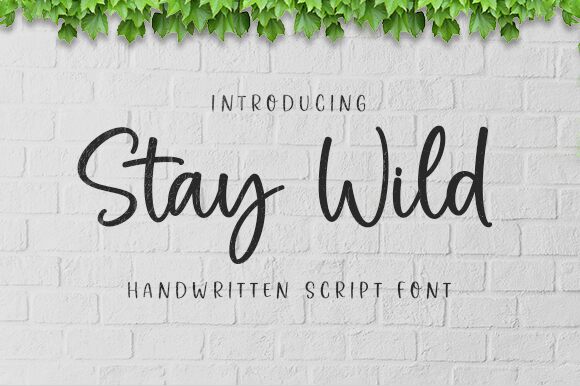
Stay Wild
Stay Wild, crafted by the skilled artisans at Graphix Line Studio, captures the essence of spontaneous elegance with its semi-light handwritten style. This font dances between creativity and legibility, featuring beautifully balanced characters that exude a personal touch in every curve. Ideal for invitations, branding, and editorial designs, Stay Wild promises to imbue your projects with an intimate feel that resonates across digital and print mediums alike.
Its versatile nature makes it not just a font but a tool for those who desire to inject authenticity into their creative endeavors.